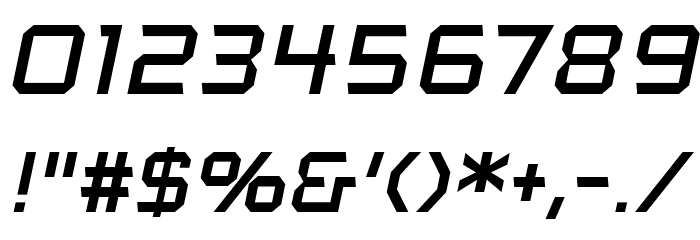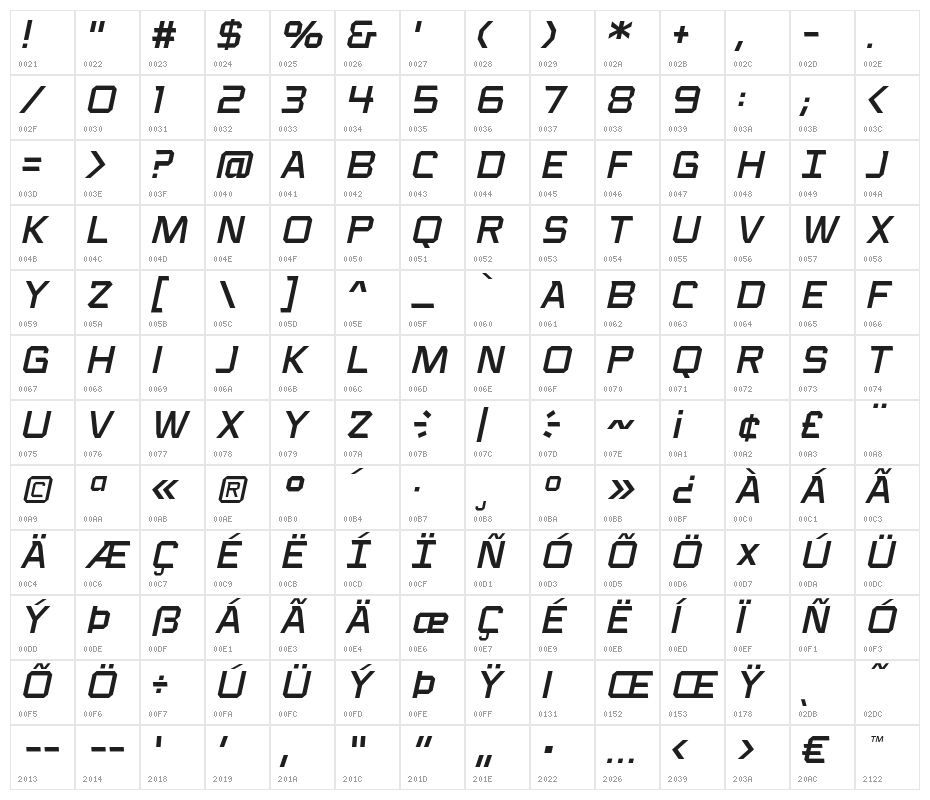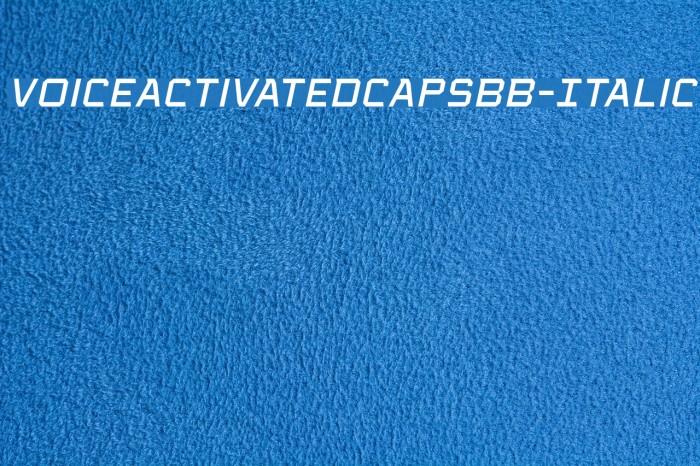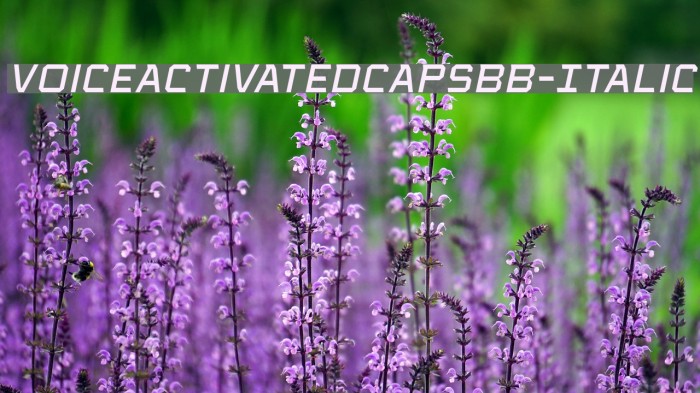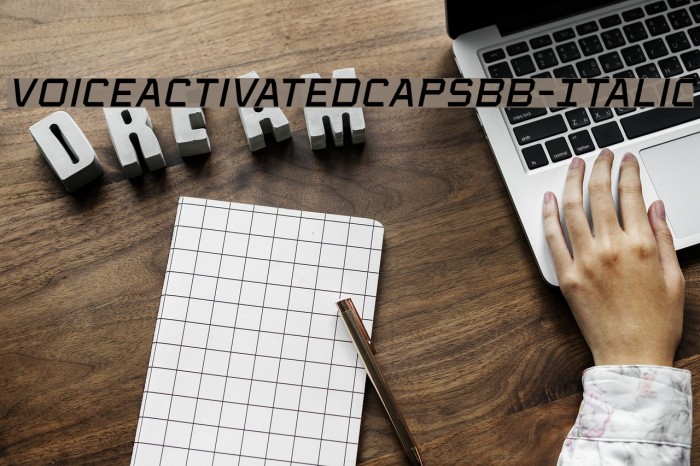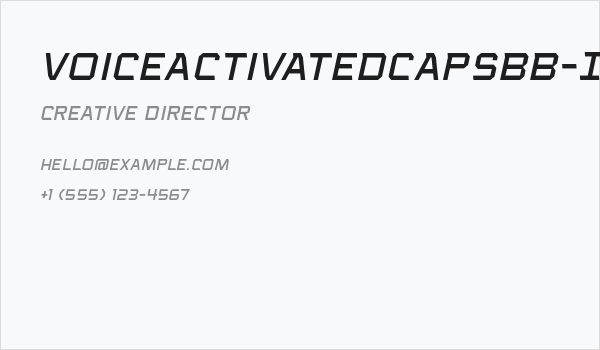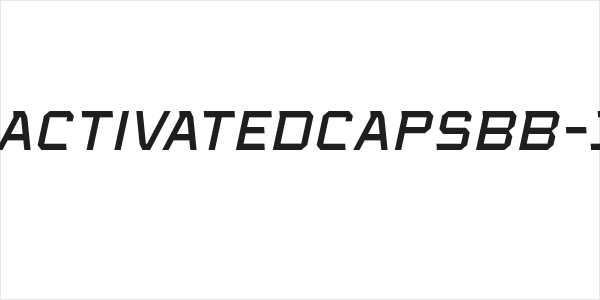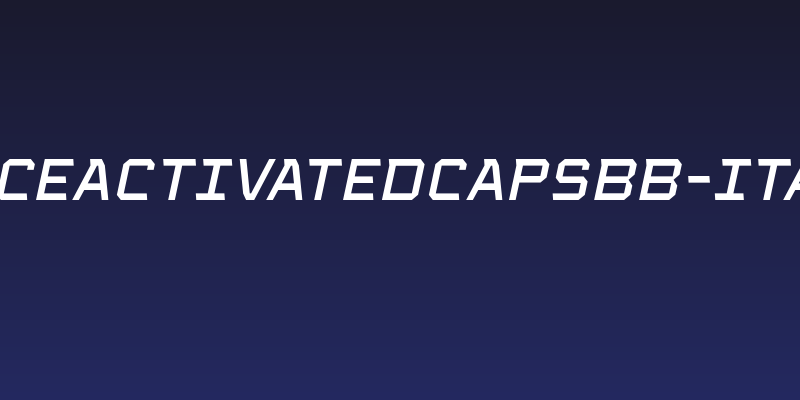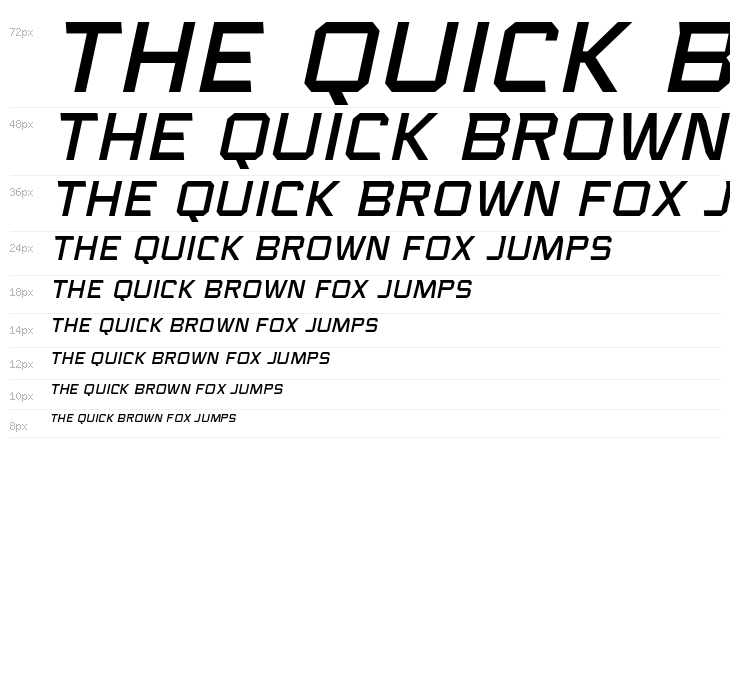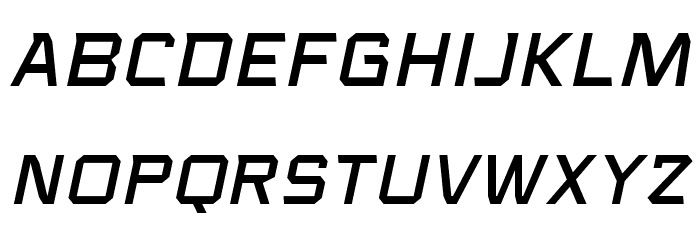
VoiceActivatedCapsBB-Italic Font
VoiceActivatedCapsBB-Italic Description
This font features a bold, italicized style with a modern and futuristic aesthetic. The characters are angular and slightly condensed, giving them a dynamic and energetic appearance. The uppercase and lowercase letters maintain a consistent slant, enhancing the italic effect. The numbers and special characters follow the same design principles, ensuring uniformity across all glyphs. The font's geometric shapes and sharp edges make it suitable for projects that require a contemporary and tech-savvy look. It is ideal for use in digital interfaces, gaming titles, and technology branding.
| Overall Style | Modern, Futuristic |
| Use Case | Headlines, Logos, Digital Interfaces |
| Proposed Projects | Ideal for digital interfaces, gaming titles, technology branding, and futuristic designs. |